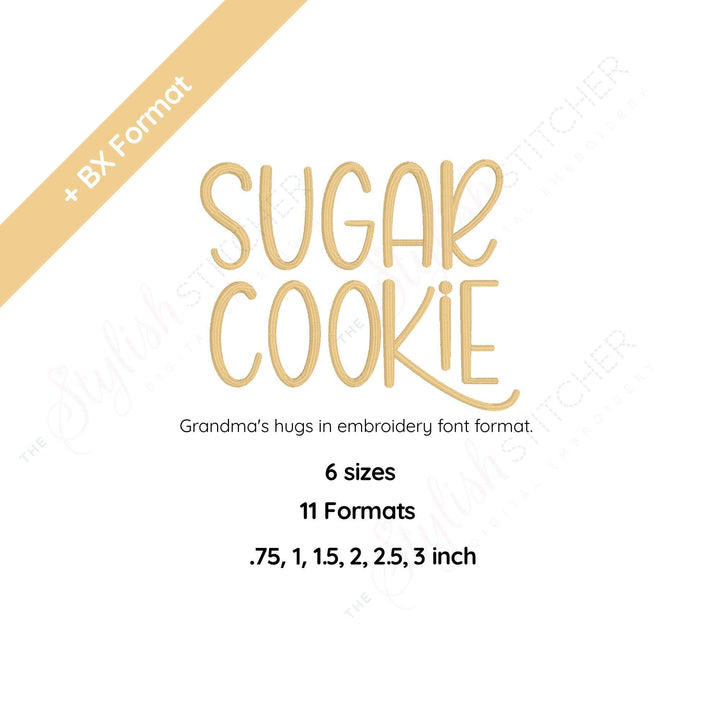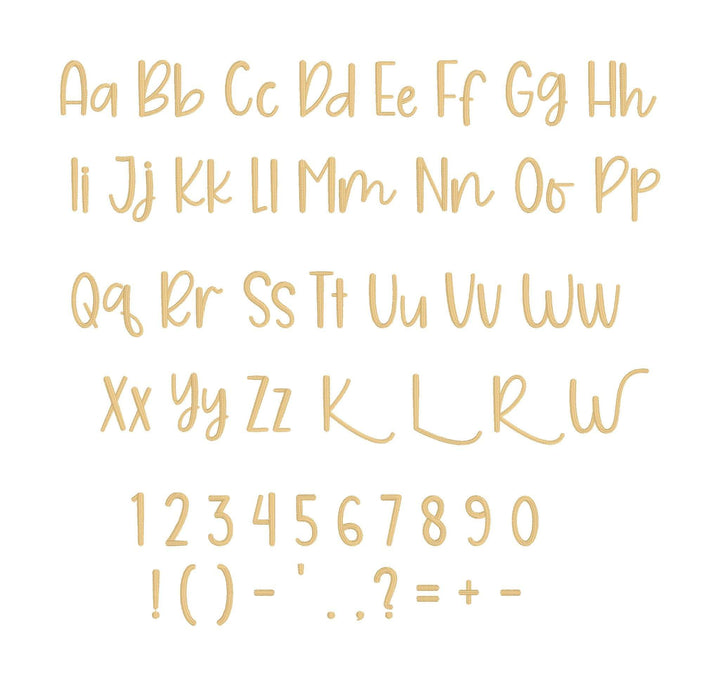
Sugar Cookie Digital Embroidery Font
Whether you're creating personalized gifts, embellishing your clothes, or adding a touch of cuteness to your home decor, Kawaii has got you covered. With its adorable characters, this font is perfect for all your crafting needs.